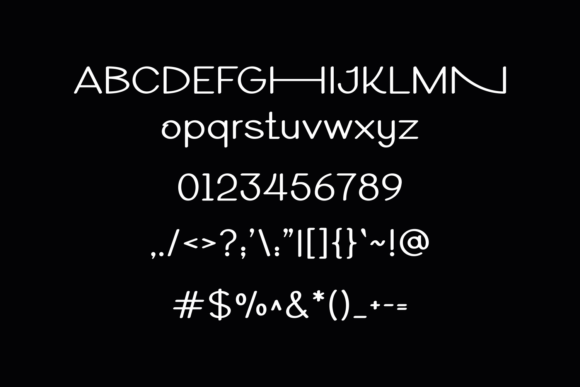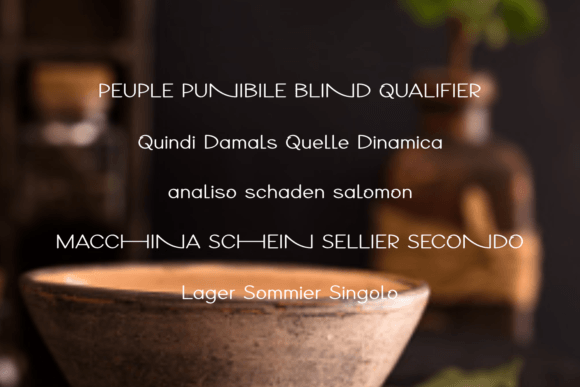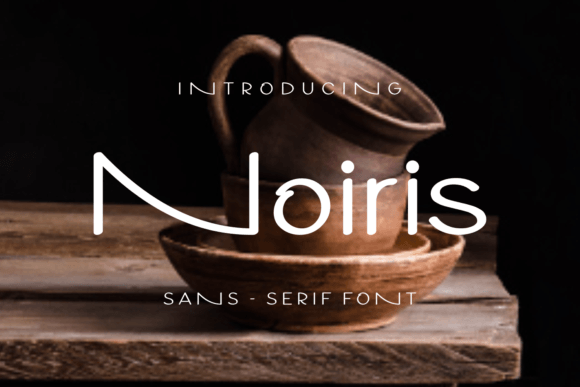
Introduction to Noiris Font
Noiris is a cool and unique display font.
Key Features of Noiris Font
Why Choose Noiris Font?
Noiris Font offers exceptional quality and versatility, making it a valuable addition to your design toolkit. Whether you’re creating for personal projects or commercial use, Noiris Font delivers professional results.